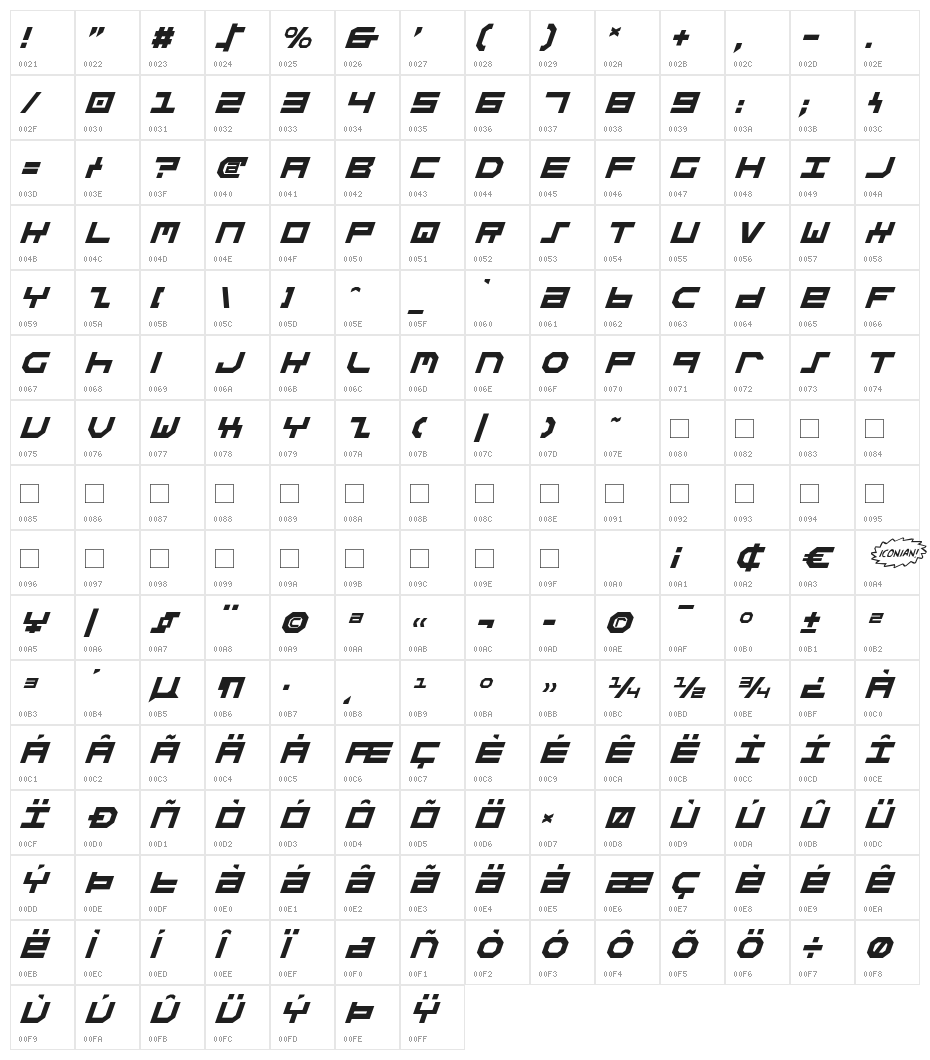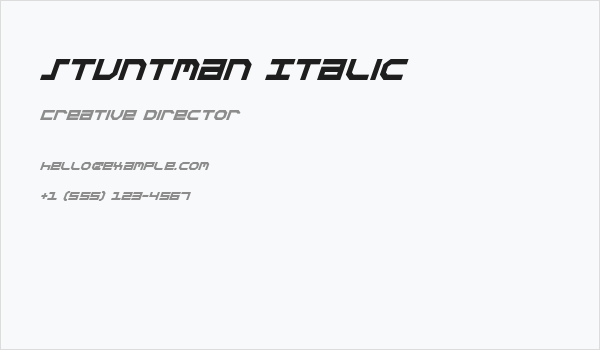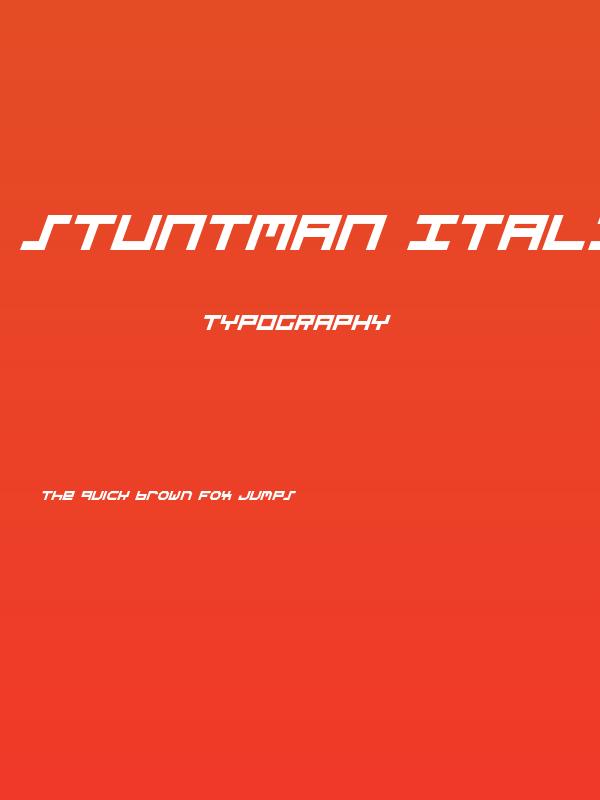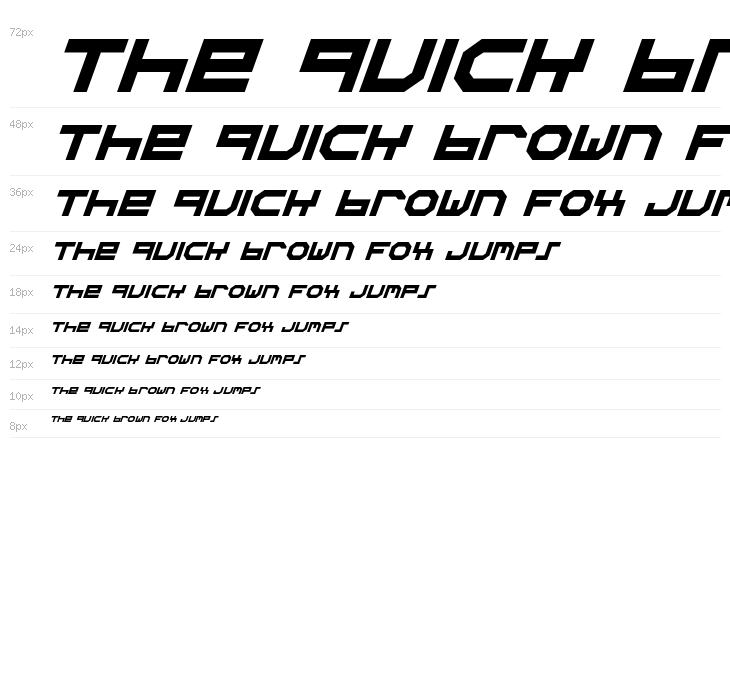
Stuntman Italic Font
Stuntman Italic Description
This font features a bold and dynamic style with a distinct italic slant, giving it a sense of motion and energy. The characters are angular and geometric, with sharp edges and a futuristic appearance. The uppercase and lowercase letters maintain a consistent style, while the numerals and special characters complement the overall design. The font's unique aesthetic makes it stand out, suitable for projects that require a modern and edgy look.
| Proposed Projects | Ideal for video game titles, movie posters, sports branding, and tech-related designs. |